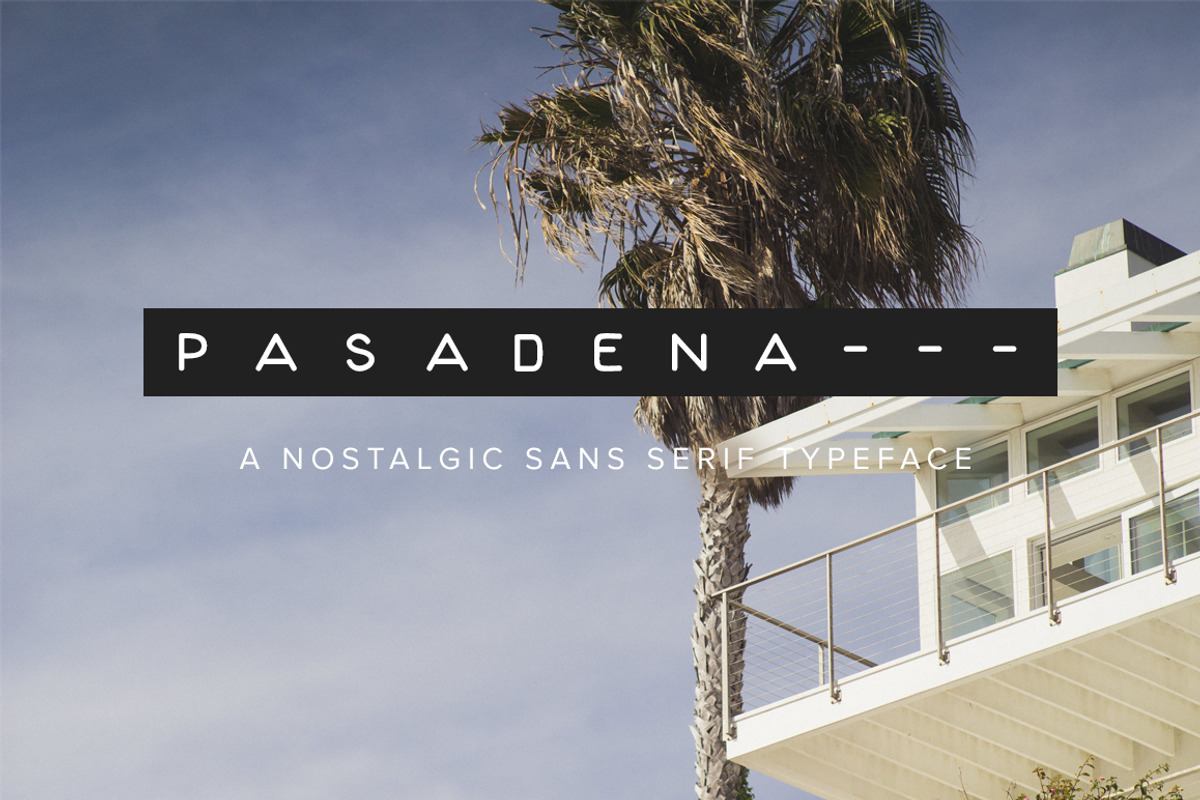
Pasadena | A Nostalgic Font Free Download
Pasadena | A Nostalgic Font Free Download is a charming retro typeface that channels the warm, vintage vibes of mid-century design. With its soft curves, rounded edges, and playful personality, Pasadena is perfect for retro branding, postcards, product packaging, posters, and social media graphics that need a touch of timeless flair.
This font captures the essence of classic Americana while offering modern readability and versatility. Whether you're designing a travel-themed logo or a throwback apparel line, Pasadena brings a delightful sense of familiarity and fun.